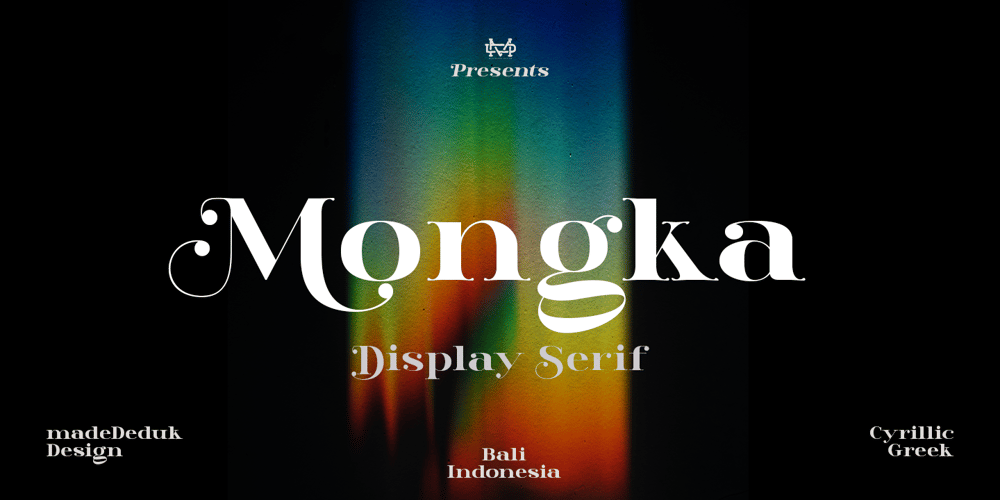
Mongka Font Family was designed by madededuk and published by madeDeduk. Mongka contains 1 styles and family package options. Masterfully designed to become a stylish and elegant, this font has the potential to bring each of your creative ideas to the highest level. Combine with ligatures and special alternative glyphs so you can create a lots with layouts and compositions. Mongka brings a touch of luxury and bespoke custom typography to logos, websites, social media quotes, wedding branding, and more.Whats Included? Uppercase & Lowercase Number & Symbol International Glyphs (Cyrillic & Greek) Multilingual support Alternative Ligature Thank you so much for checking out my shop, Hope you enjoy it.